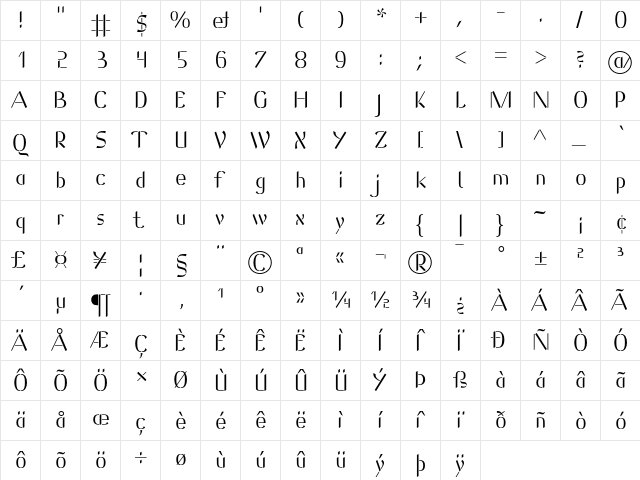
Bijoux Regular
Design Context for Bijoux Typeface
Bijoux takes a measured approach to typography — its balanced proportions and neutral character make it a reliable workhorse for both digital and print work.
Pro Tip: Use Bijoux in both headline and body roles to test its range before committing to a single application.